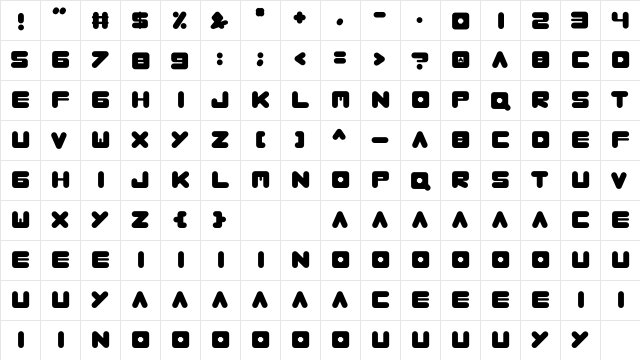
Cocoluck Regular
| Foundry | Rometheme Studio |
| Designer | Rometheme Studio |
Design Context for Cocoluck Typeface
Cocoluck is a composed and adaptable typeface that performs quietly and consistently across a wide range of design contexts.